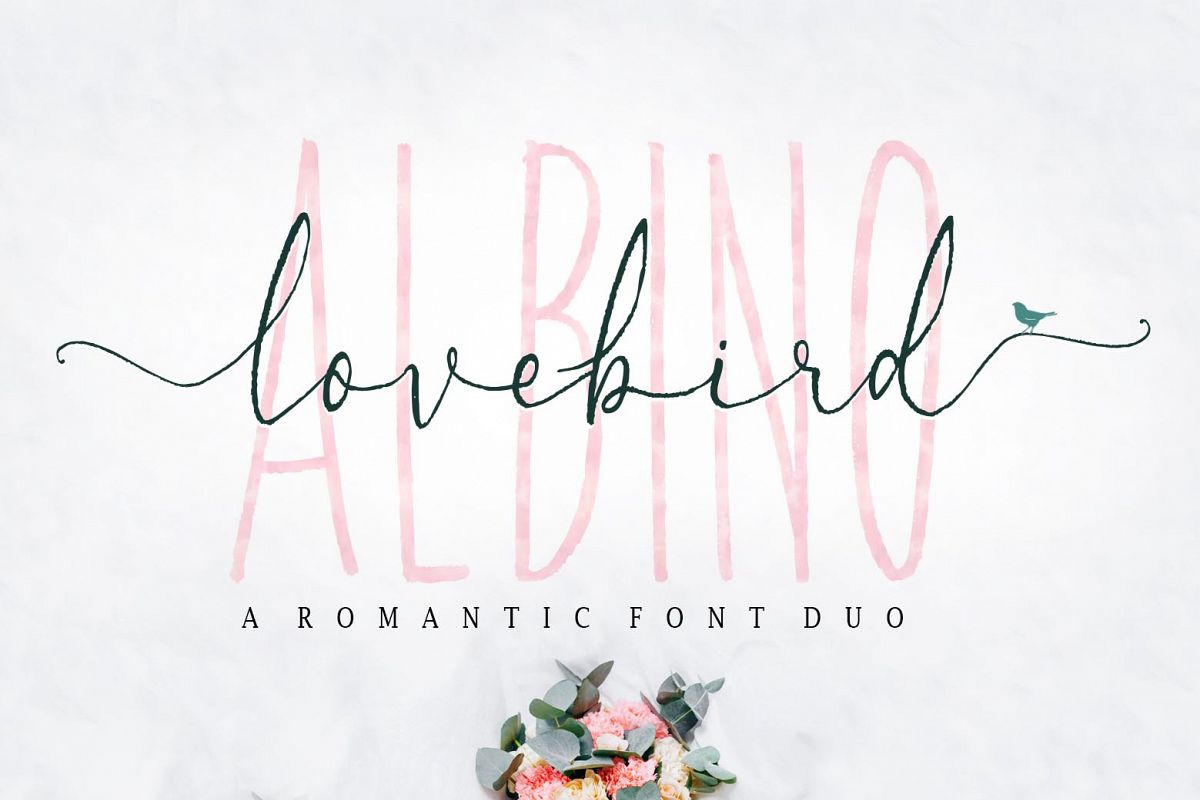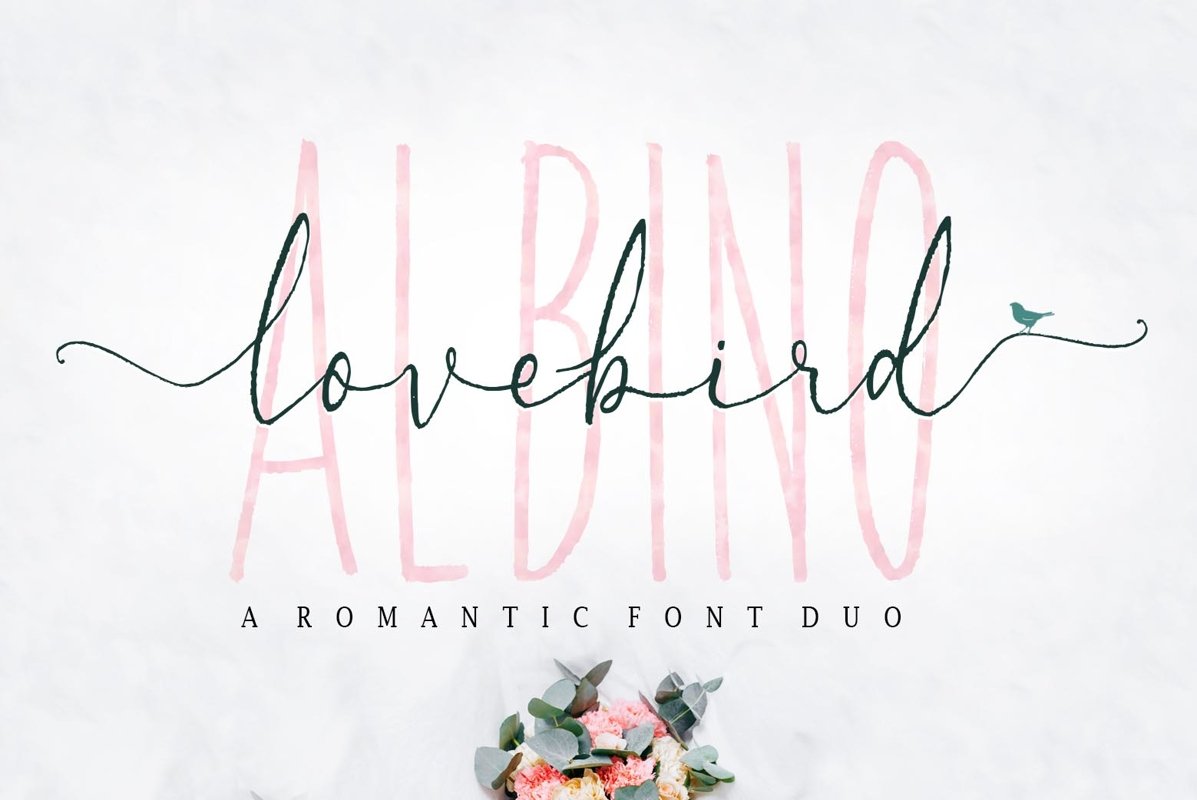
Albino Lovebird - Font Duo
Albino Lovebird
"Albino Lovebird Font" is a romantic brush font duo with contemporary, sophisticated accents. Suitable for use in watercolor designs. Such as Novel tittle, Apparel, Invitations, Quotes, Books tittle, Stationery Design, Branding, Logos, Greeting Card, T-shirt, Packaging design, Poster and more.
Albino Lovebird Font includes a complete set of uppercase and lowercase letters, as well as multi-language support, numbers, punctuation, ligatures and alternative character,also with additional Albino Lovebird Font Sans and extra swashes.